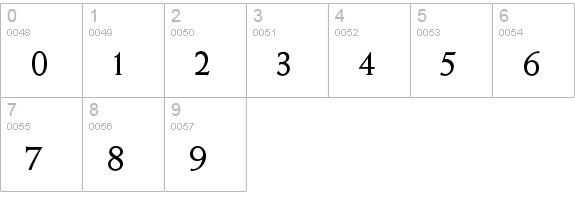
WeissAntiquaEF-Regular is the standard, neutral variant in the WeissAntiquaEF typeface family \xE2\x80\x94 well suited to general body text, paragraphs, and standard typographic work.
WeissAntiquaEF-Regular is a timeless and elegant font that exudes sophistication and refinement. Its beautifully crafted letterforms showcase a harmonious blend of classic and modern design elements, making it perfect for a wide range of projects. With its graceful curves and delicate details, WeissAntiquaEF-Regular adds a touch of elegance to any typographic composition. Whether used for headlines, body text, or branding materials, this font effortlessly captivates the reader's attention. What sets WeissAntiquaEF-Regular apart is not only its exquisite design but also the fact that it is freely available to download at FontsMarket.com. This means that designers, creatives, and typography enthusiasts can access this remarkable font without any cost, allowing them to elevate their projects without breaking the bank. With WeissAntiquaEF-Regular, you have the freedom to explore endless possibilities in your designs. Its versatility and timeless appeal make it a valuable asset for any designer's toolkit. So, why wait? Visit FontsMarket.com today and discover the beauty and elegance of WeissAntiquaEF-Regular font for yourself.